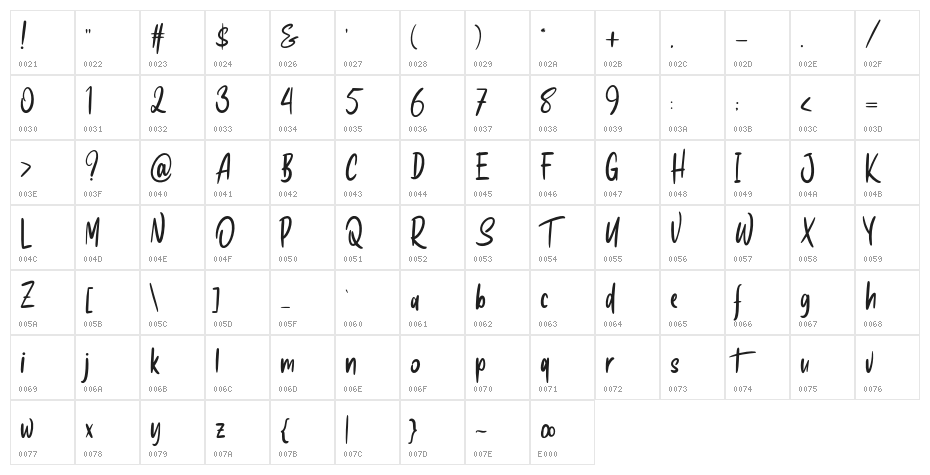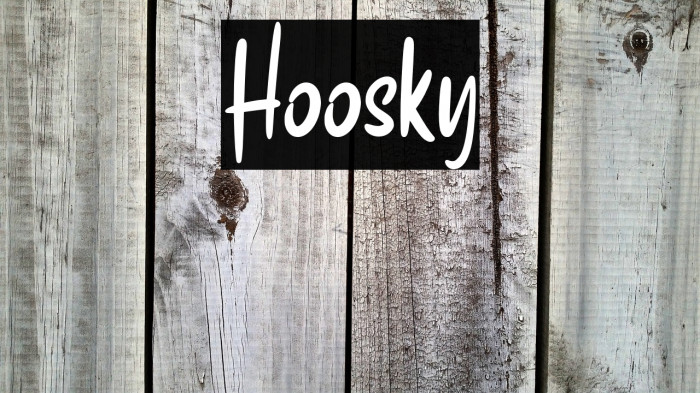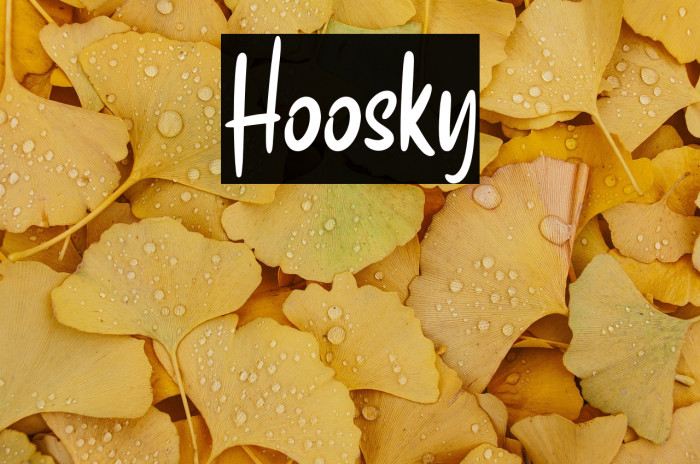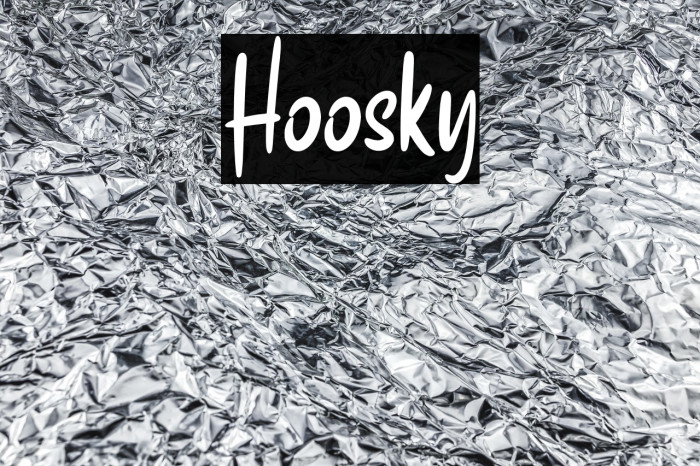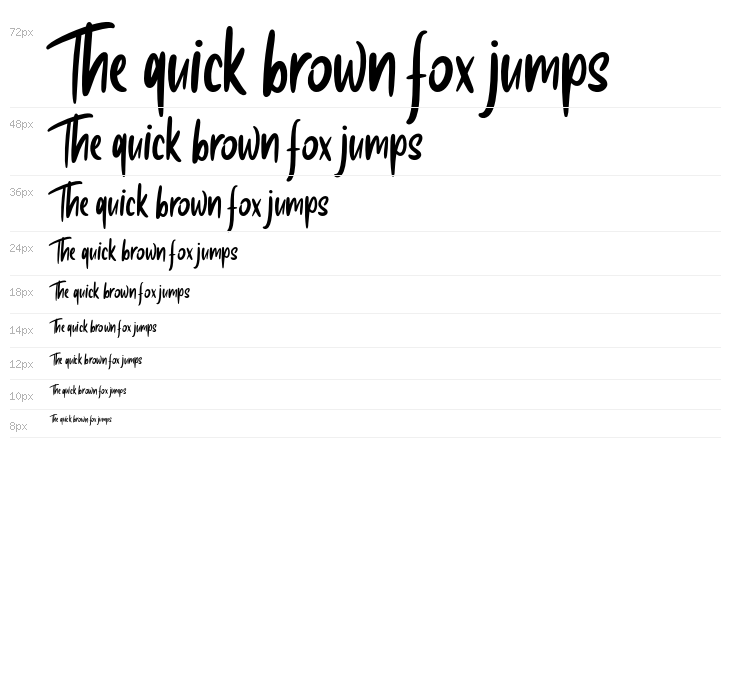
Hoosky Font
Hoosky Description
This font features a playful and dynamic handwritten style, characterized by its fluid and slightly irregular strokes. The uppercase letters are bold and expressive, with a slight slant that adds to the casual feel. Lowercase letters maintain a consistent style, with some characters featuring unique loops and curves that enhance the font's personality. Numbers and special characters are designed to match the overall aesthetic, ensuring a cohesive look across all text. The font's energetic and informal appearance makes it suitable for creative and fun projects.
| Proposed Projects | Ideal for greeting cards, children's books, playful branding, and social media graphics. |